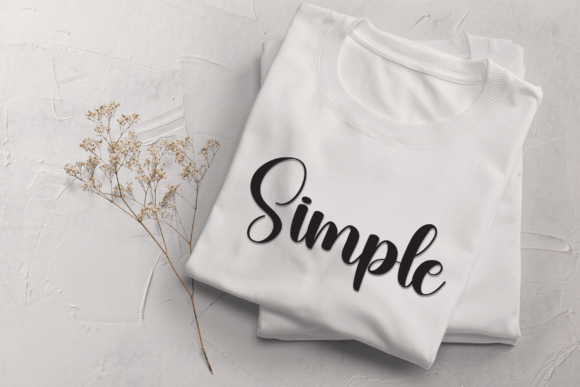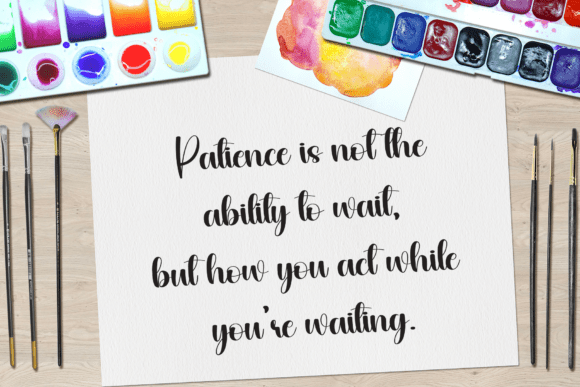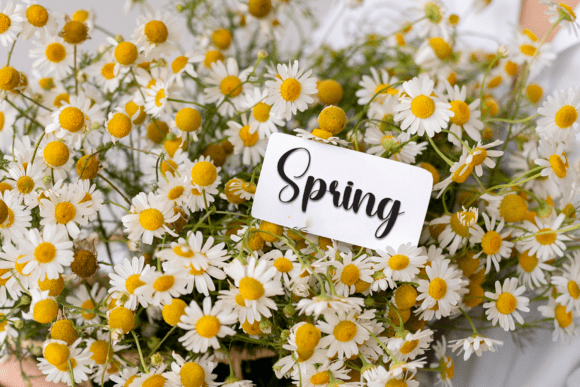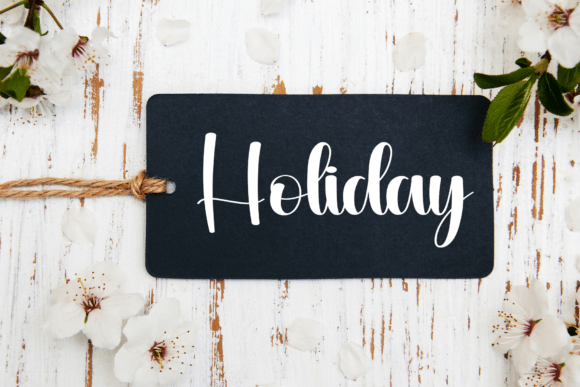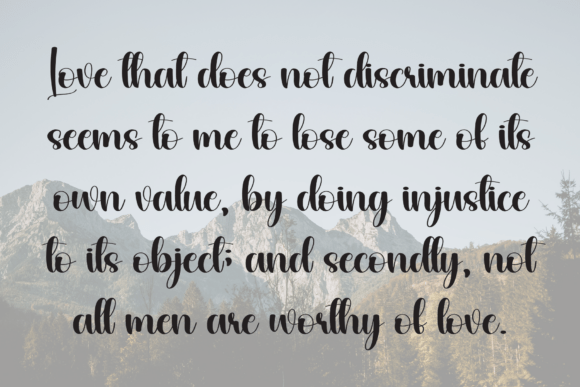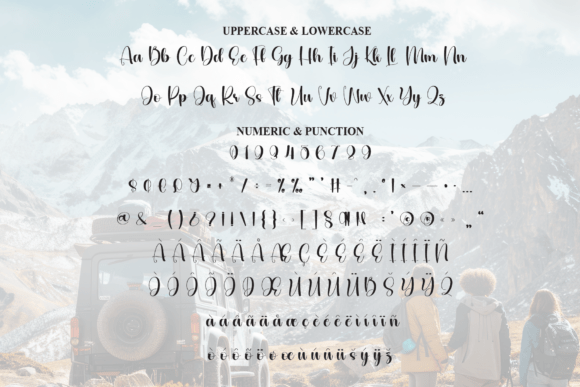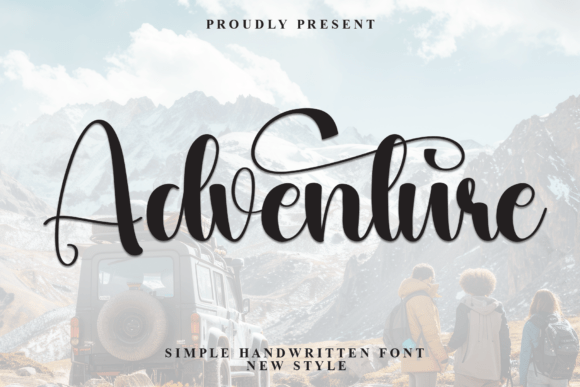
Unleash Your Wanderlust with Adventure Font: The Ultimate Choice for Travel and Outdoor Designs
Are you a travel blogger, outdoor enthusiast, or designer looking for a font that captures the essence of adventure and freedom? Look no further than Adventure Font, a stunning handwritten script font that embodies the spirit of exploration and wanderlust. With its elegant swashes and carefree aesthetic, this font is perfect for creating captivating travel blogs, outdoor branding, apparel designs, and wedding materials that evoke a sense of excitement and spontaneity.
What Makes Adventure Font So Special?
Adventure Font is a beautifully crafted handwritten script font that boasts a range of distinctive features, including:
- Elegant Swashes: Add a touch of sophistication and glamour to your designs with Adventure Font’s elegant swashes, carefully crafted to add a sense of movement and fluidity to your text.
- Free-Spirited Aesthetic: Inspired by the great outdoors, Adventure Font’s free-spirited aesthetic is perfect for designers who want to evoke a sense of adventure and freedom in their work.
- Handwritten Charm: With its unique, handwritten feel, Adventure Font brings a sense of warmth and personality to your designs, making them stand out from the crowd.
The Perfect Choice for Travel and Outdoor Designs
Whether you’re creating a travel blog, outdoor branding, or apparel design, Adventure Font is the perfect choice for designers who want to capture the essence of adventure and exploration. Here are just a few ways you can use Adventure Font to elevate your designs:
- Travel Blogs: Use Adventure Font to create captivating headlines and titles that evoke a sense of wanderlust and adventure, drawing readers in and inspiring them to explore new destinations.
- Outdoor Branding: Create bold, eye-catching branding that reflects your outdoor brand’s personality and values, with Adventure Font’s elegant swashes and free-spirited aesthetic.
- Apparel Design: Add a touch of adventure and style to your apparel designs with Adventure Font, perfect for creating t-shirts, hoodies, and other outdoor gear that inspires a sense of exploration and freedom.
- Wedding Materials: Use Adventure Font to create romantic, whimsical wedding materials, including invitations, programs, and signage, that capture the magic and excitement of the special day.
Why Designers and Crafters Love Adventure Font
Adventure Font has quickly become a favorite among designers and crafters, who love its unique combination of elegance, charm, and adventure. Here are just a few reasons why:
- Unique and Versatile: Adventure Font is a one-of-a-kind font that can be used in a wide range of design applications, from travel and outdoor branding to apparel and wedding materials.
- Easy to Use: With its clean, intuitive design, Adventure Font is easy to use and pair with other fonts, making it perfect for designers of all skill levels.
- High-Quality Design: Adventure Font is designed to the highest standards, with careful attention to detail and a focus on creating a beautiful, elegant aesthetic.